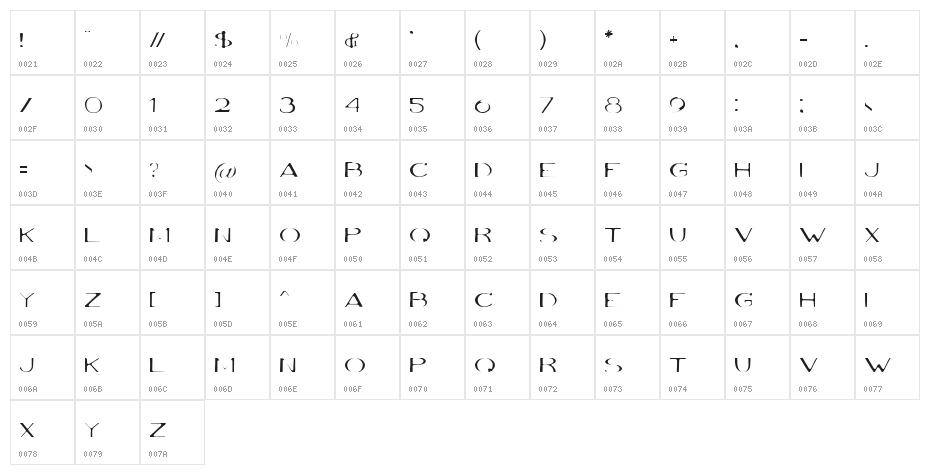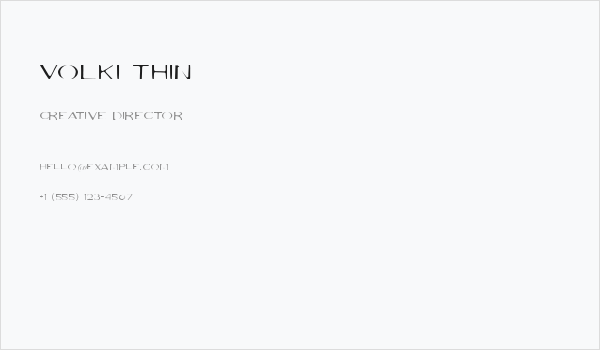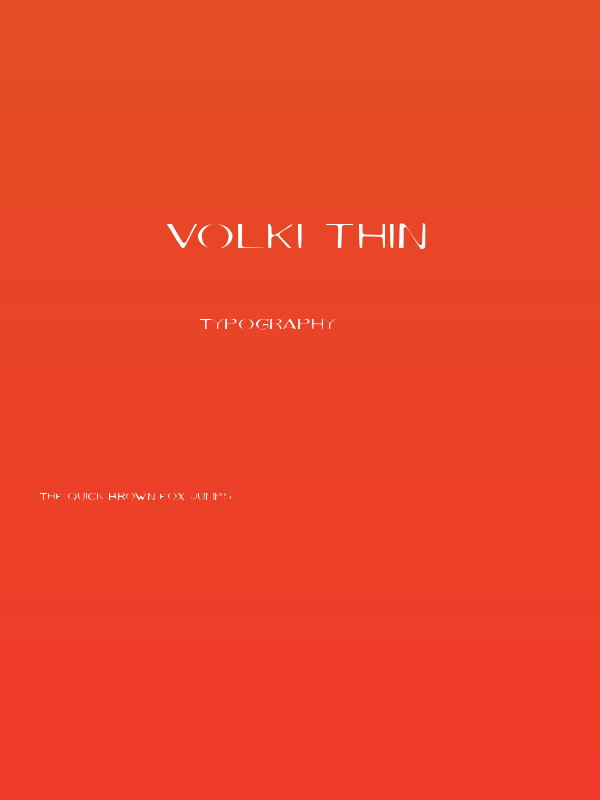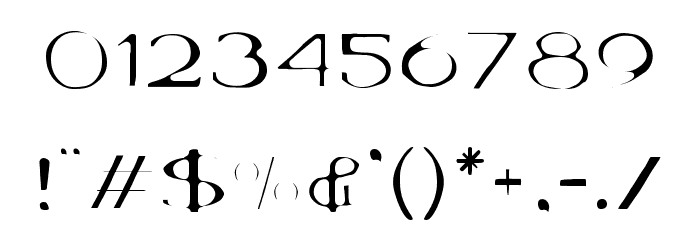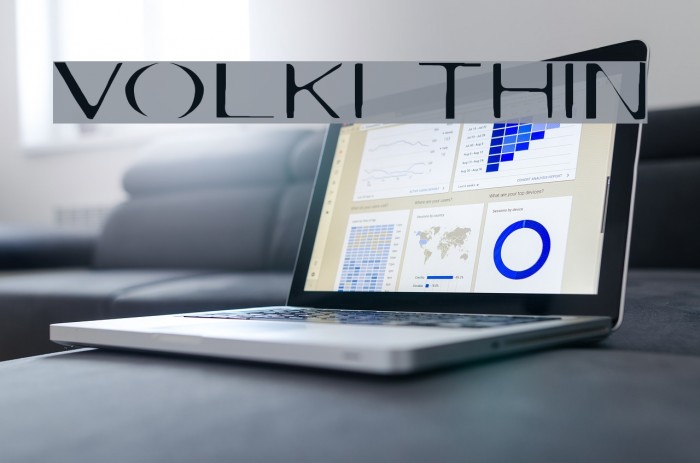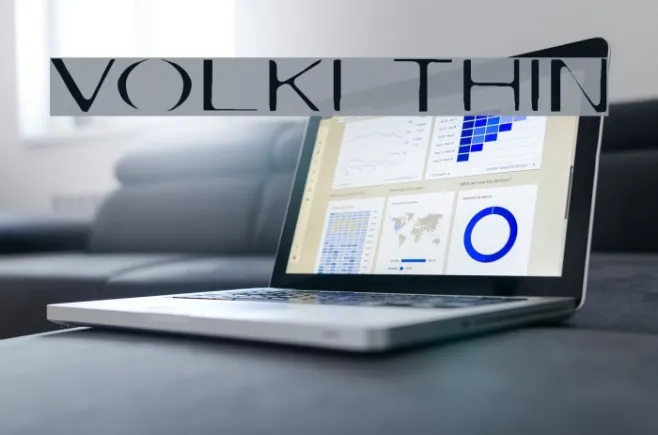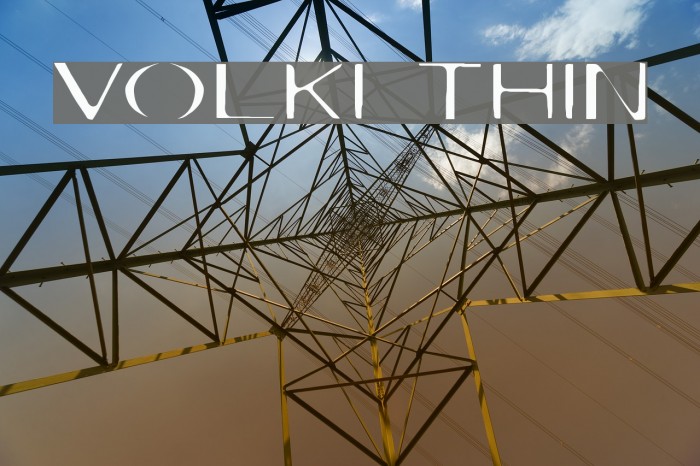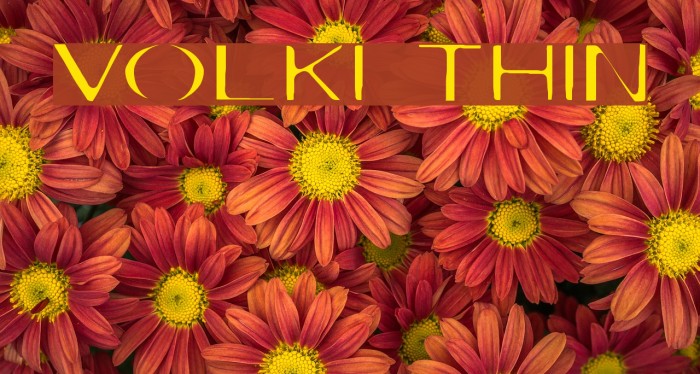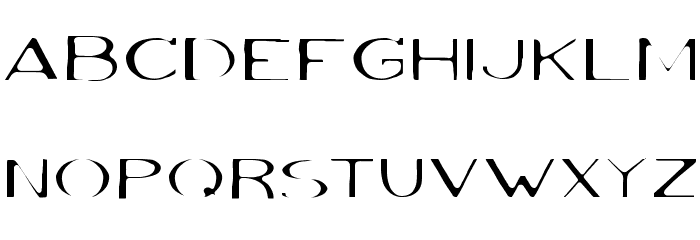
Volki Thin Font
Volki Thin Description
This font exhibits a modern and artistic style with a unique twist on traditional letterforms. The characters are crafted with a thin, elegant line weight, featuring distinctive cutouts and curves that create a sense of movement and fluidity. The uppercase and lowercase letters maintain a consistent design language, while the numerals and special characters complement the overall aesthetic. The font's design is both minimalistic and expressive, making it suitable for creative and contemporary projects.
| Use Case | Logos, Headlines, Posters |
| Proposed Projects | Ideal for branding, editorial design, and creative advertising projects. |